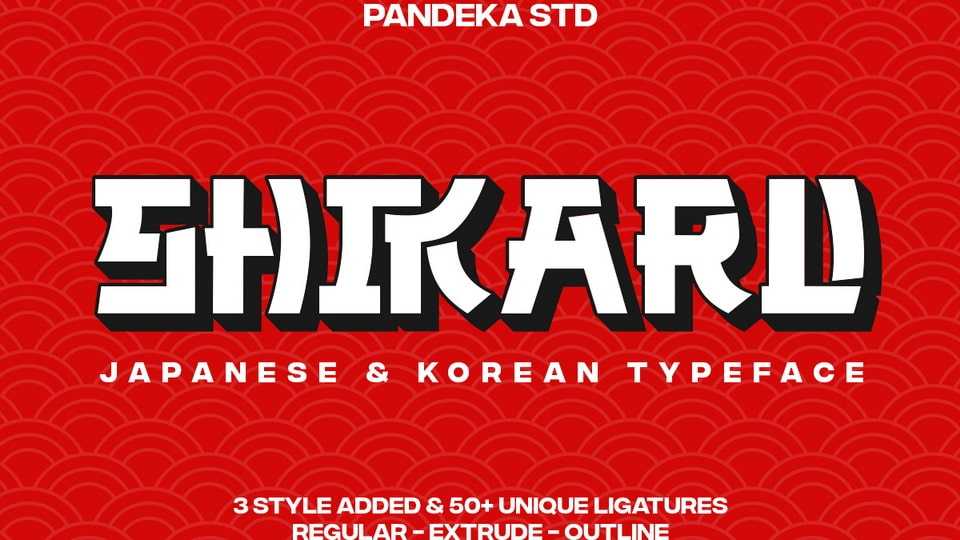
Download Shikaru font, a display typeface inspired by modern Japanese and Korean lettering. Shikaru allows endless creativity to make your designs stand out.